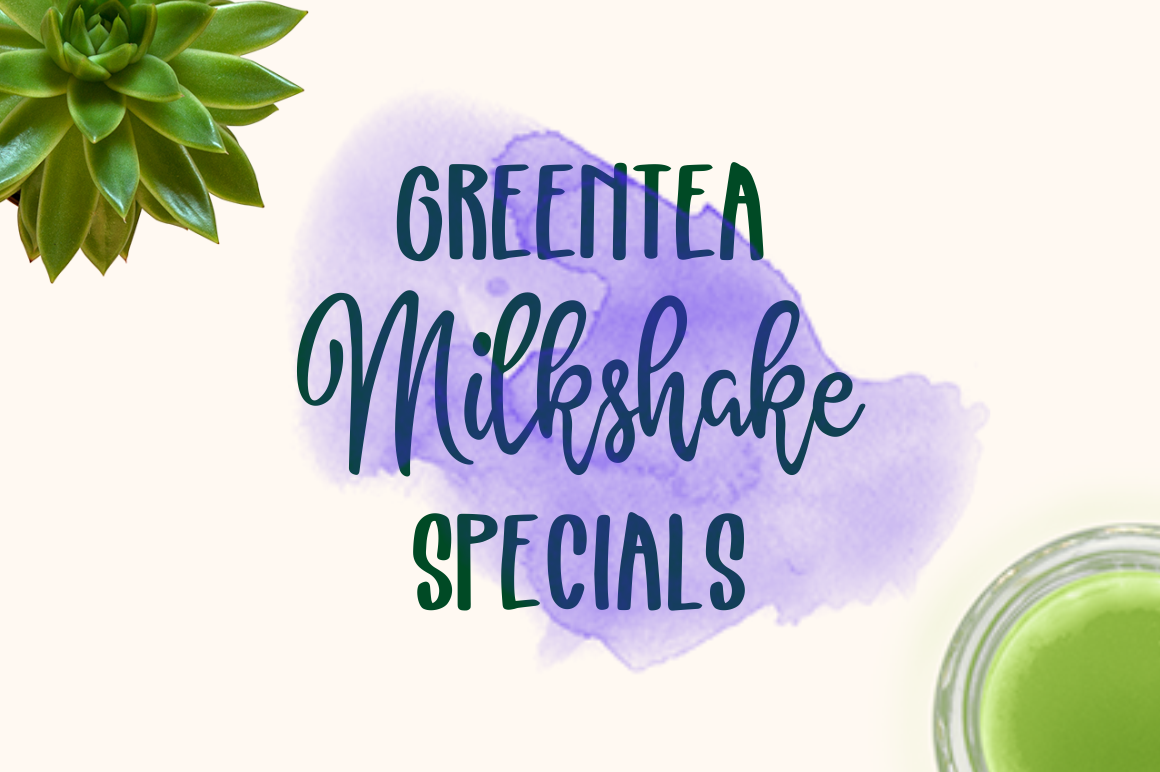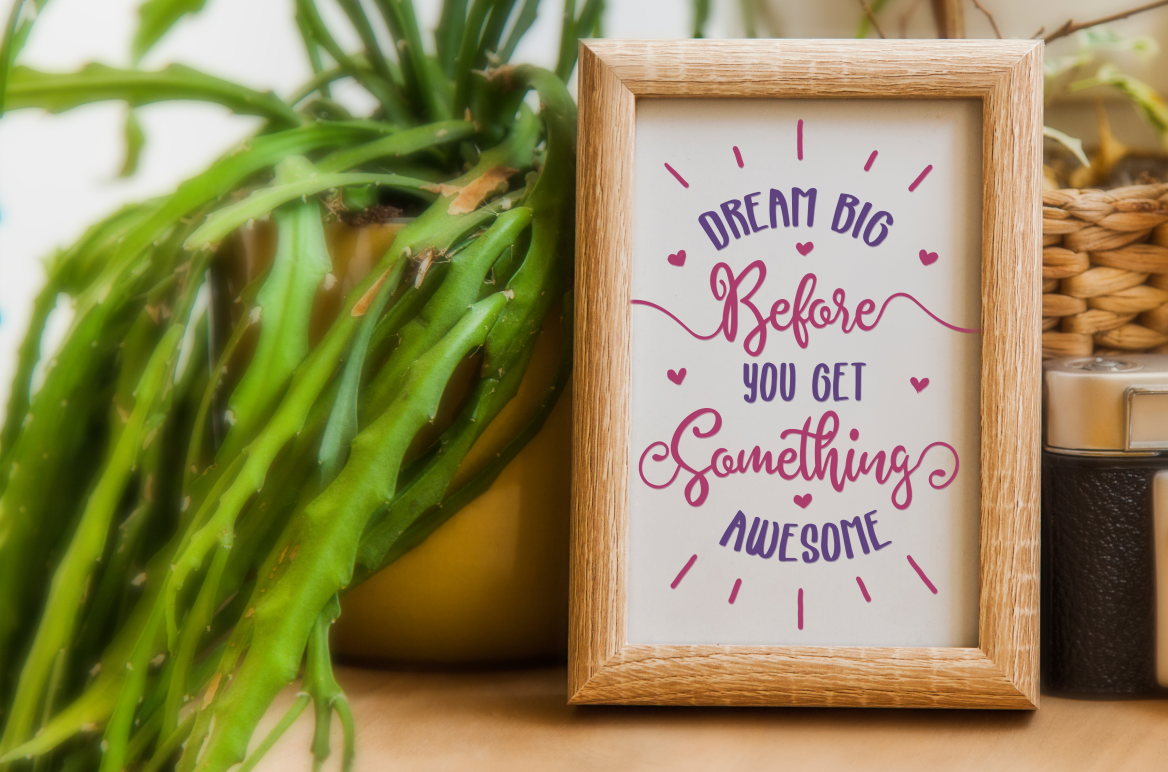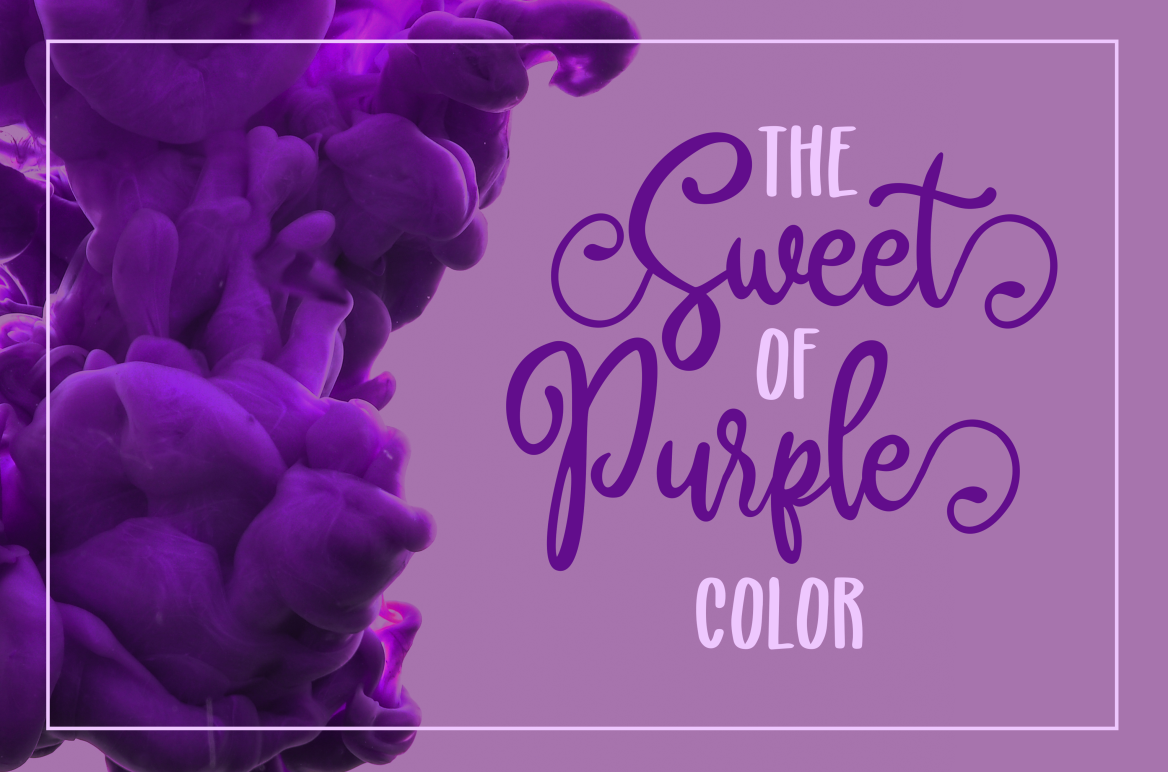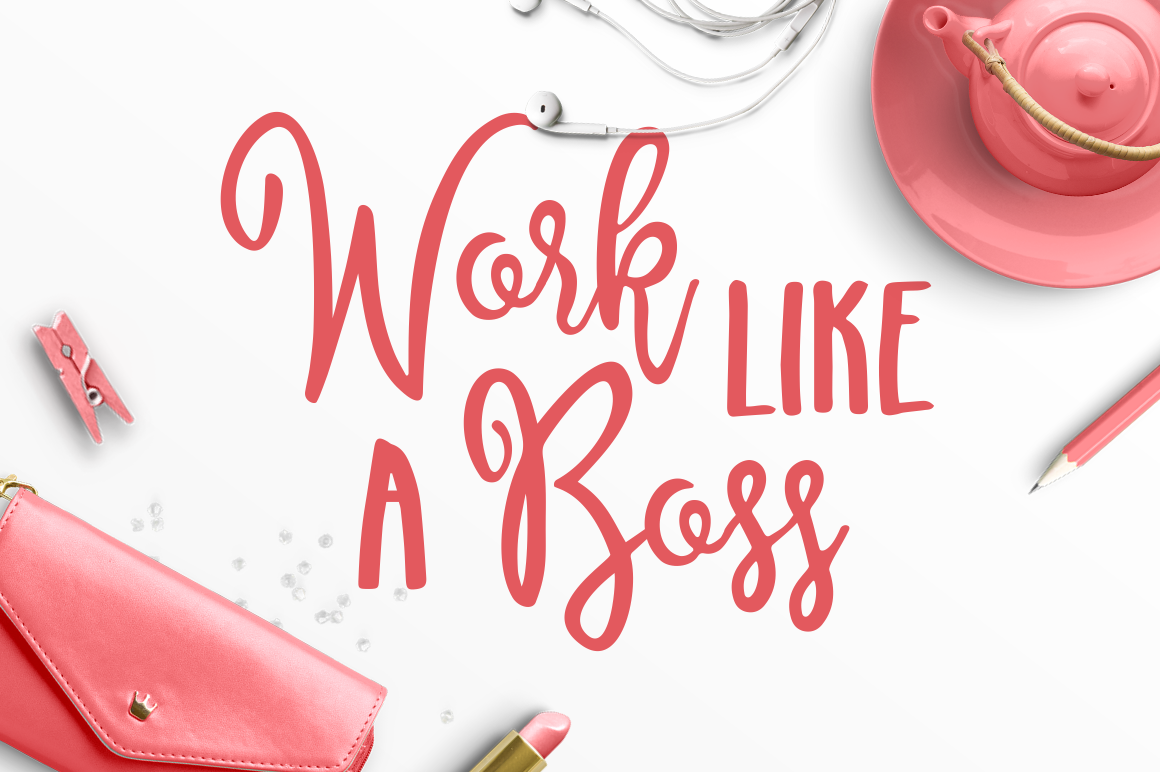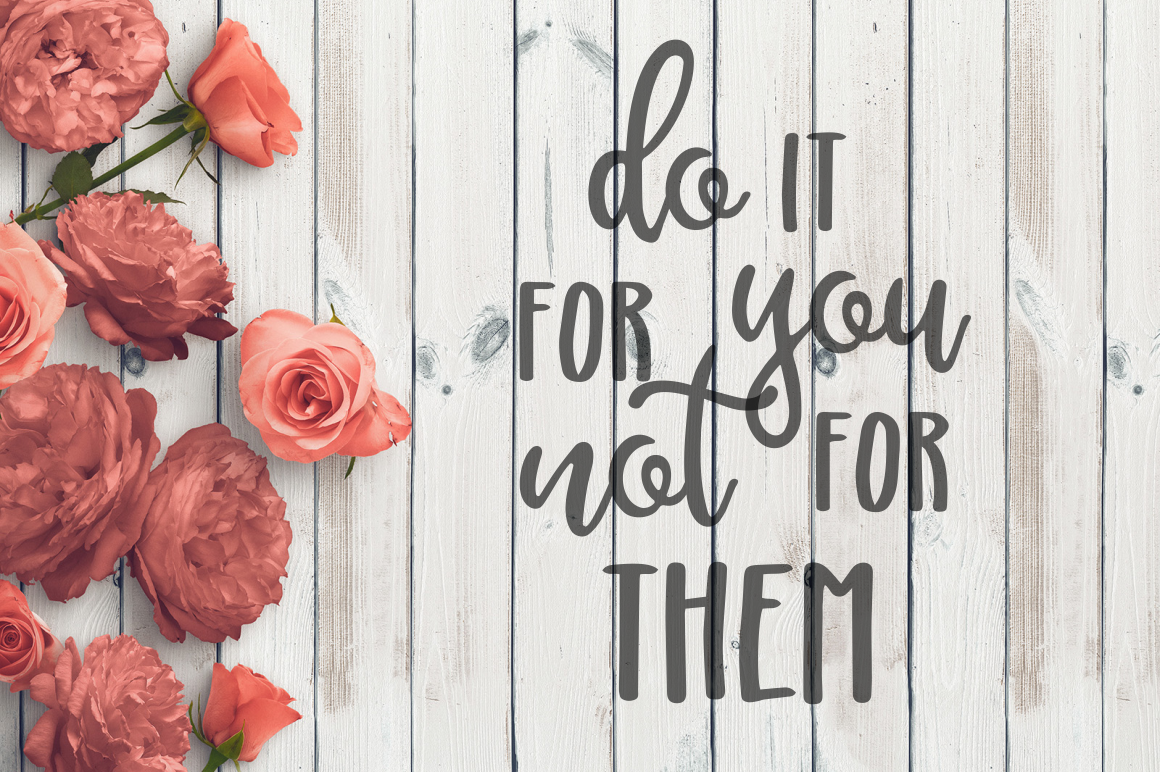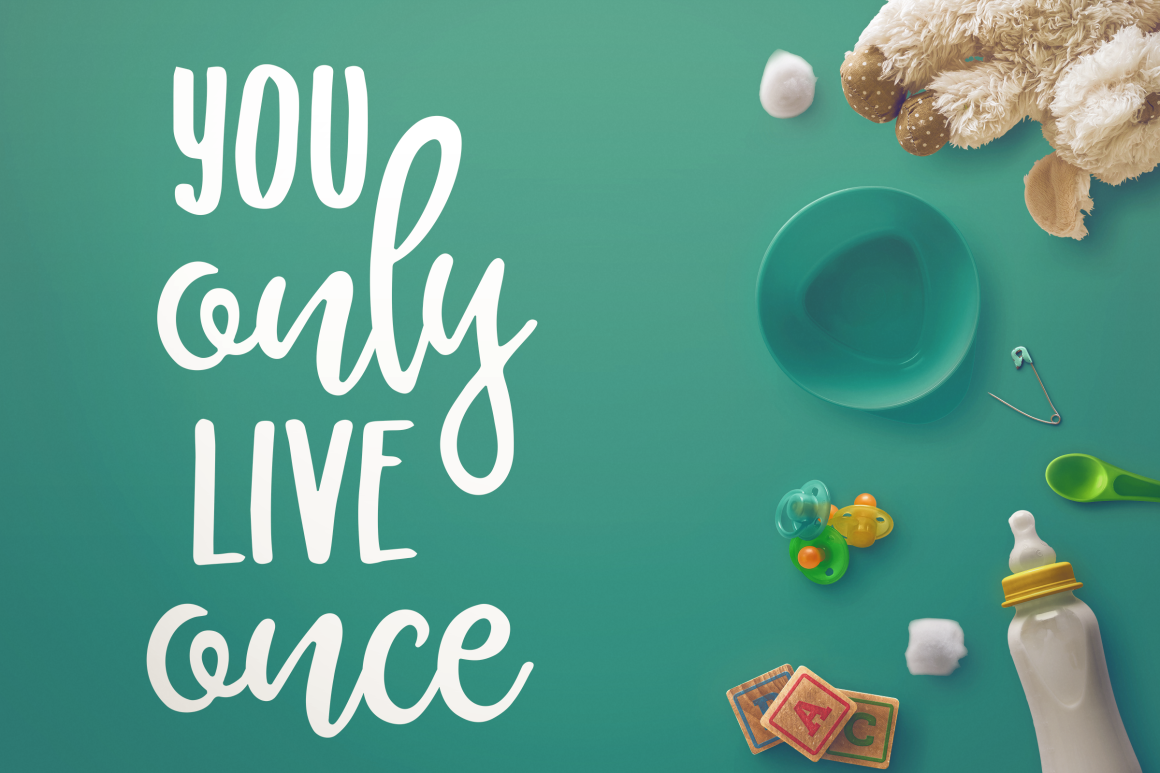
The Perfect Pair: Unlocking the Beauty of Alyssum Blossom Font
Have you ever found yourself stuck in front of a blank design screen, desperate for that one element to bring your project to life? We’ve all been there. Sometimes, all it takes is a single, perfectly chosen font to elevate your design from bland to grand. For designers seeking a stylish and approachable duo, look no further than the Alyssum Blossom Font.
This stunning font pairing combines the elegance of a cursive script with the modern simplicity of a sans serif font, creating a versatile and engaging combination that’s perfect for a wide range of design ideas. Whether you’re crafting a wedding invitation, designing a social media campaign, or creating a blog post, the Alyssum Blossom Font is an invaluable asset in your design toolkit. Download this amazing duo today and unlock a world of creative possibilities.
- Unique Characteristics: Alyssum Blossom Font features a delicate, hand-drawn design with intricate details and subtle texture, giving it a distinctive and elegant appearance.
- Font Style: The font is available in a single style, but with multiple weights and ligatures, allowing for a range of design possibilities.
Alyssum Blossom Font Review
Overall, I have mixed feelings about the Alyssum Blossom Font. On one hand, there are some aspects that I really like. ✨ The font has a delicate, whimsical quality that is perfect for creating a romantic or vintage atmosphere in your designs. The flourishes and swashes are beautifully crafted and add a touch of elegance to any text. ✨ The font also comes in a range of weights and styles, making it easy to find the perfect combination to suit your needs.
However, there are some limitations to the font that should be taken into consideration. ⚠️ One of the main issues I have is with the font’s legibility at smaller sizes. While the font looks beautiful at larger sizes, it can become difficult to read at smaller sizes, which may limit its use in certain applications. ⚠️ Additionally, the font’s unique style may not be suitable for all types of designs, and some users may find it too ornate or overwhelming.
Pros:
- Delicate, whimsical quality perfect for romantic or vintage designs
- Beautifully crafted flourishes and swashes
- Range of weights and styles available
Cons:
- Limited legibility at smaller sizes
- Unique style may be too ornate or overwhelming for some users
Tips for Getting the Most Out of Alyssum Blossom Font
For best results, use Alyssum Blossom Font in conjunction with floral or vintage-themed designs. Experiment with different font sizes, colors, and combinations to create unique and eye-catching effects.